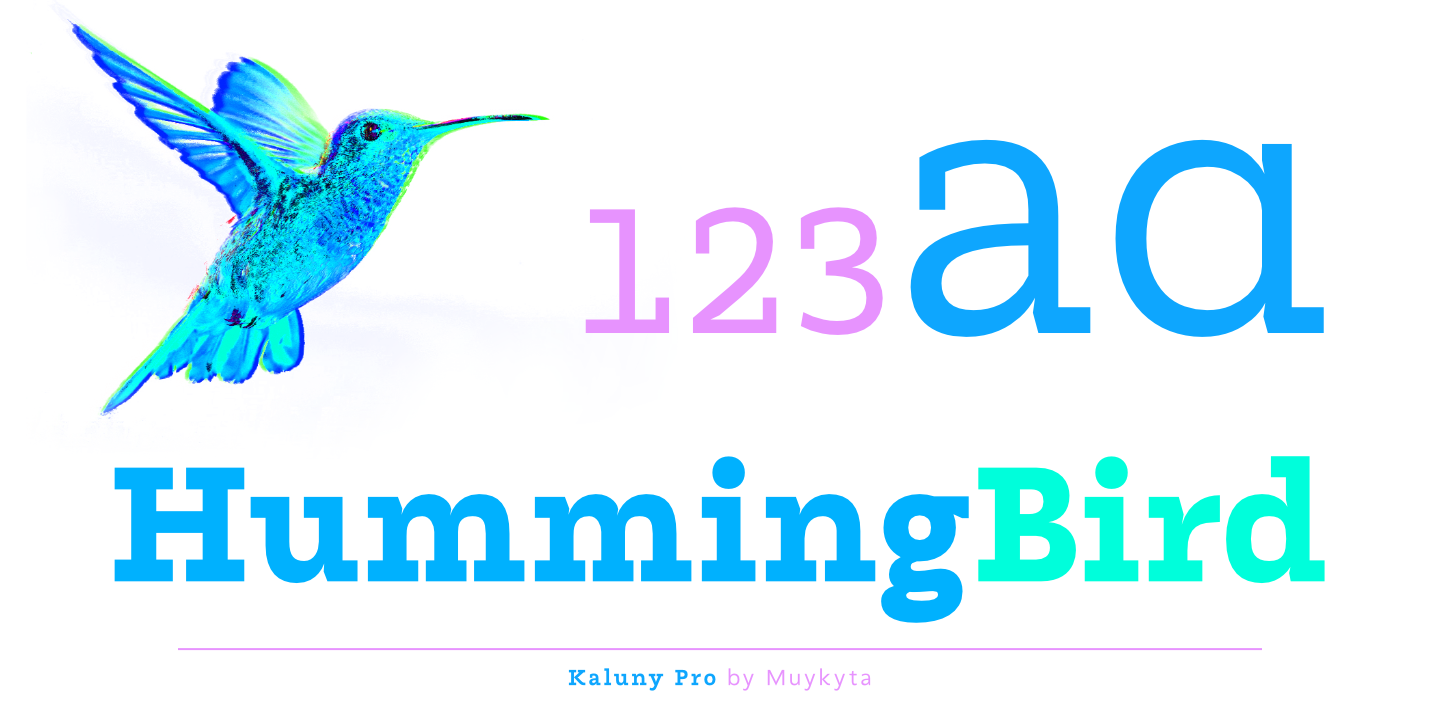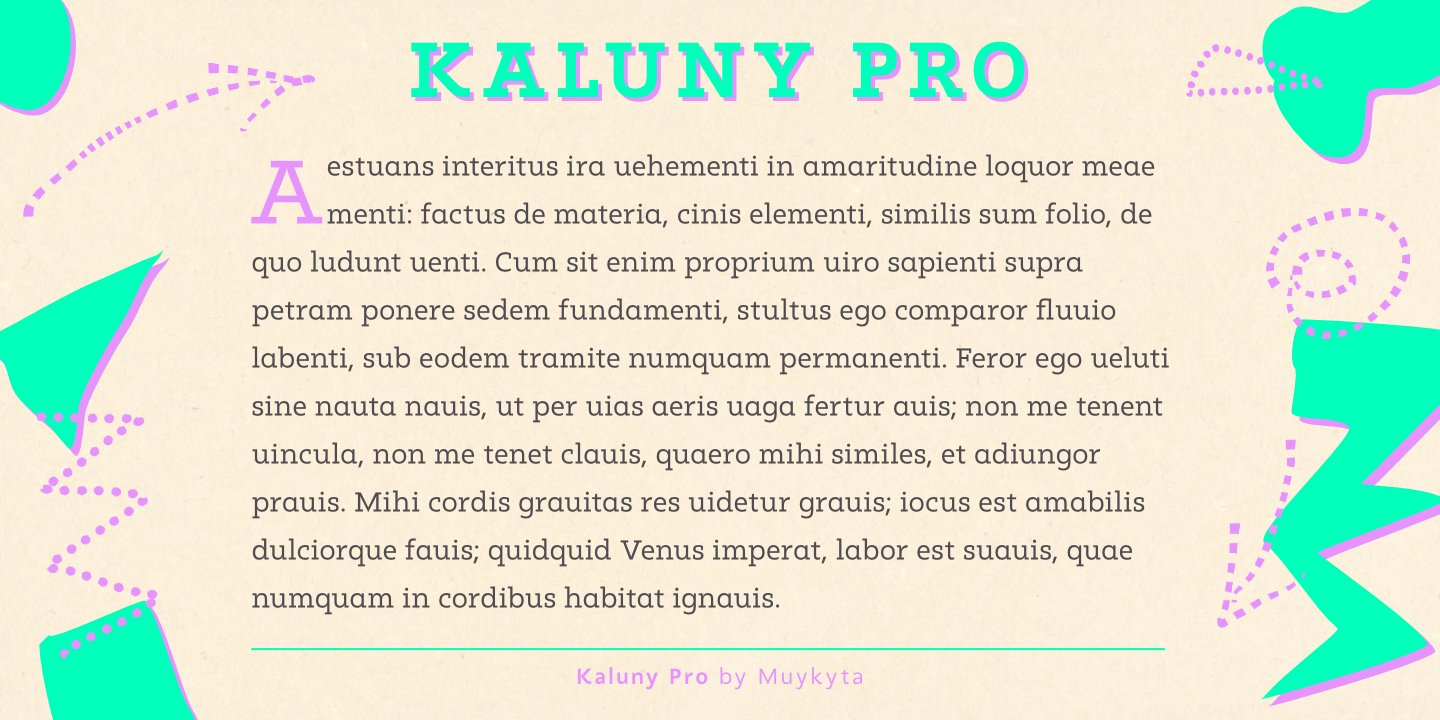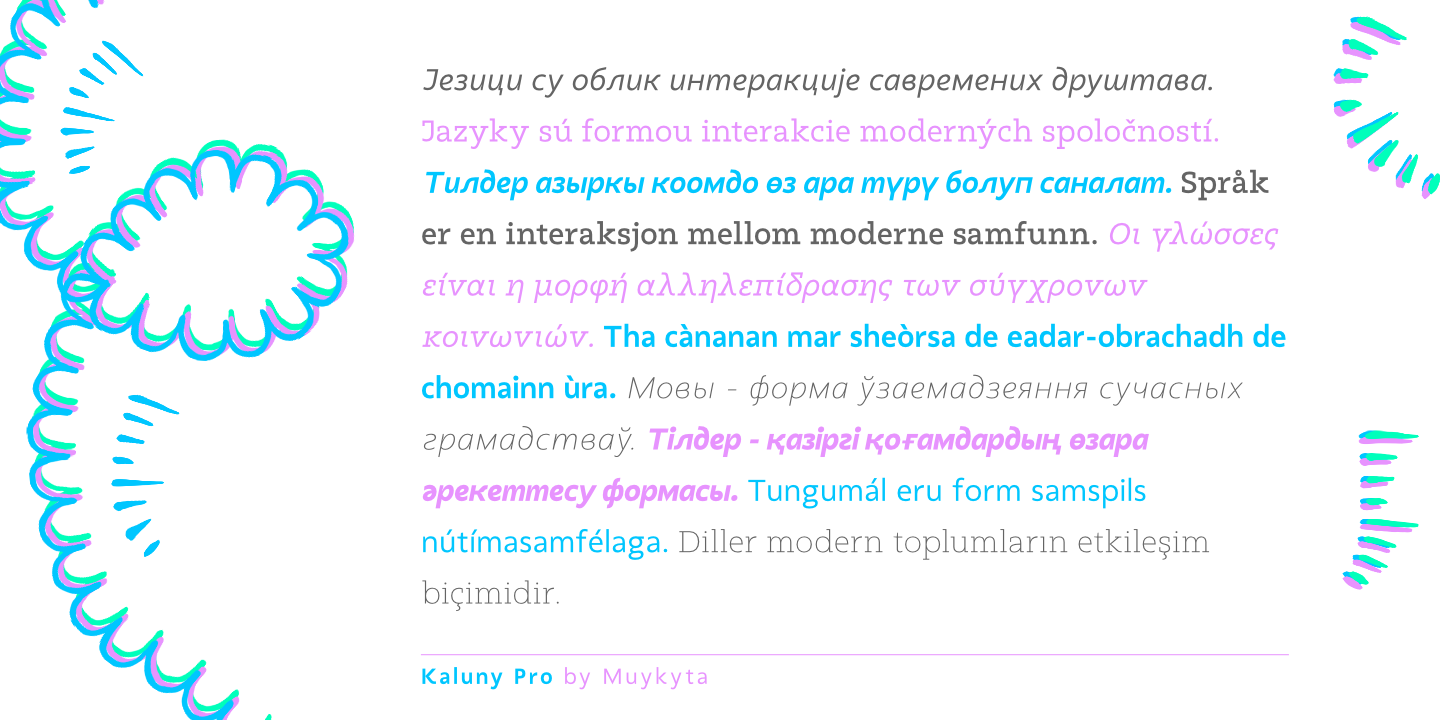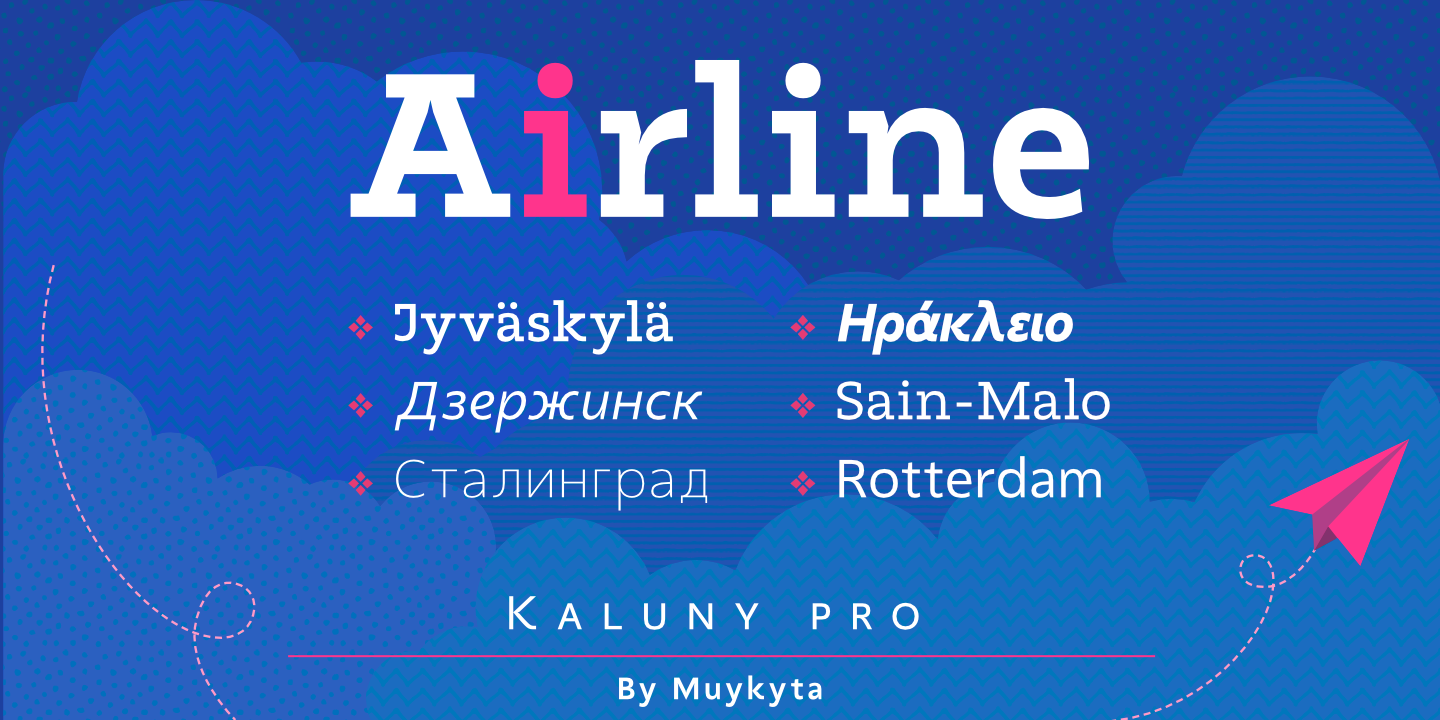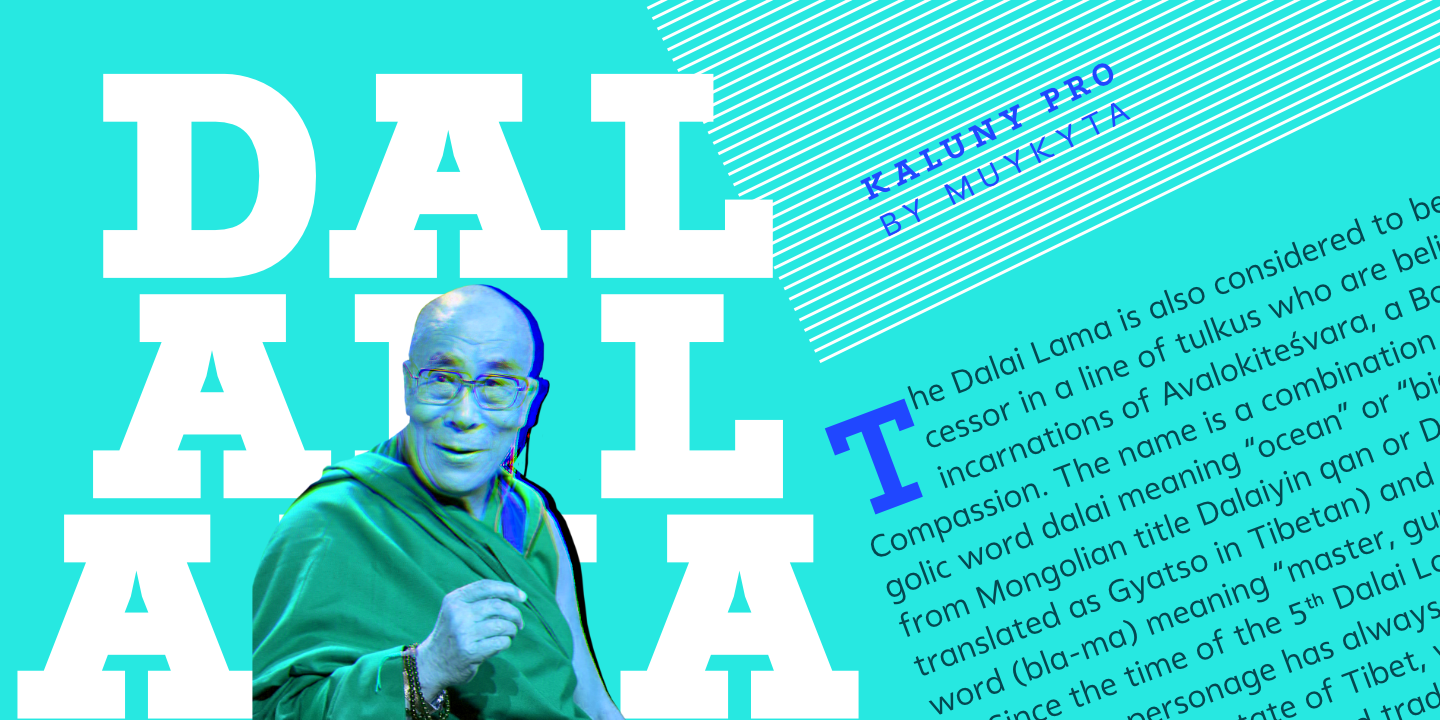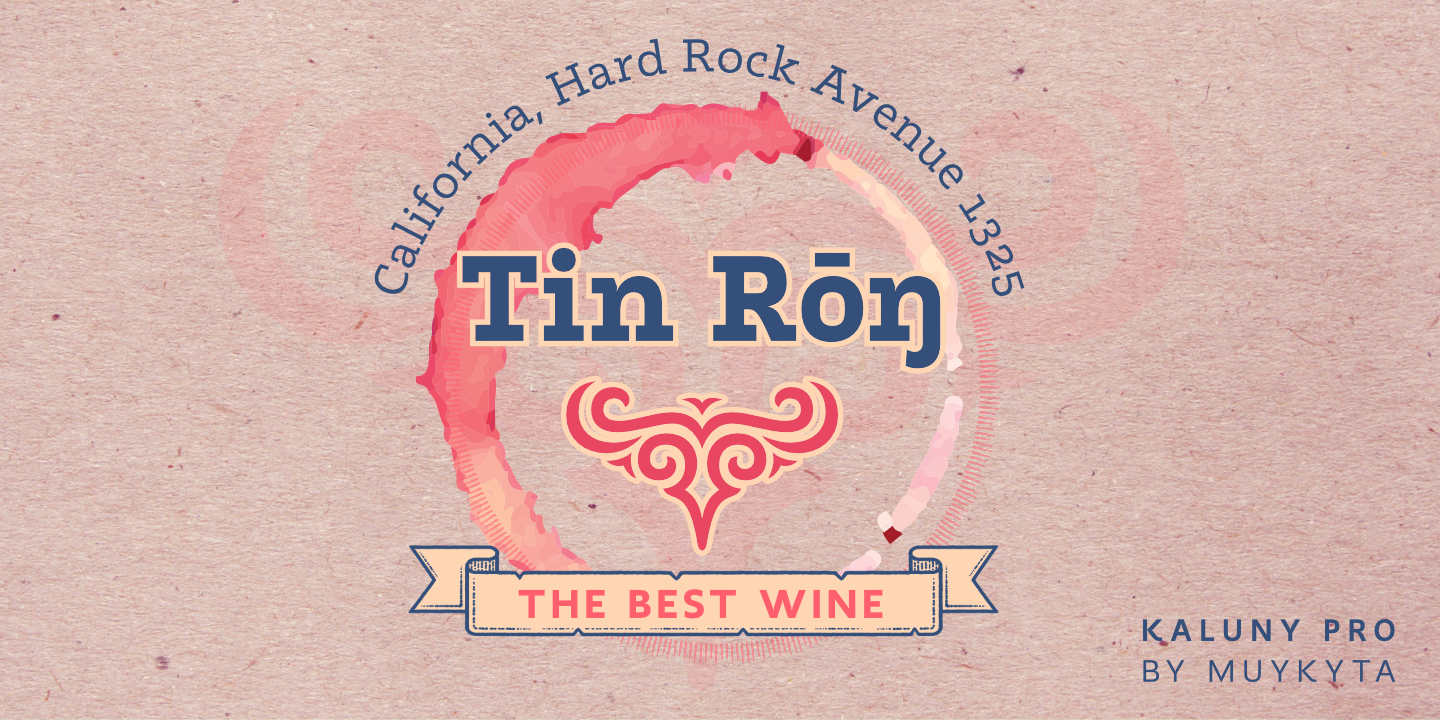
Kaluny Pro is a humanistic style font. It has two versions: one slab serif and one non-slab serif. Modern and with some classic features, it is easy to read and forms a homogeneous set.